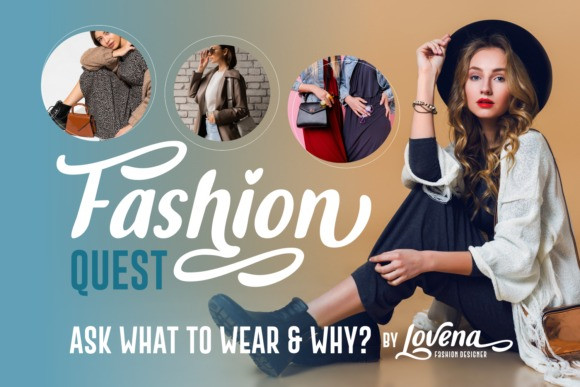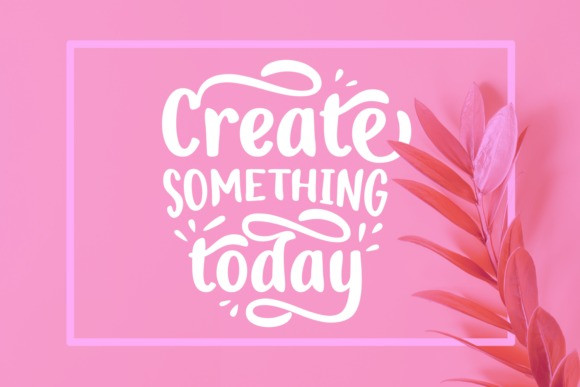
Bohabey Font
Bohabey Display Font is a playful and paint brushed handwritten font. It is PUA encoded which means you can access all of the amazing glyphs and ligatures with ease!
Add it confidently to your favorite creations and let yourself be amazed by the outcome generated.